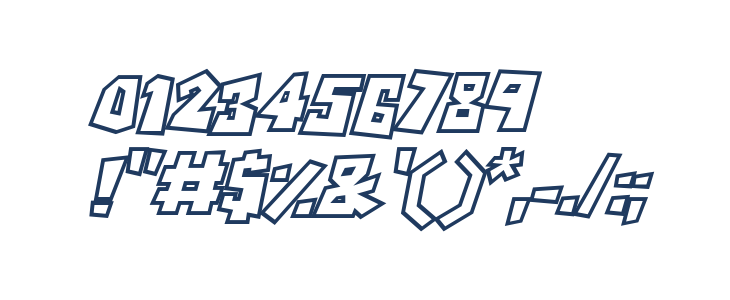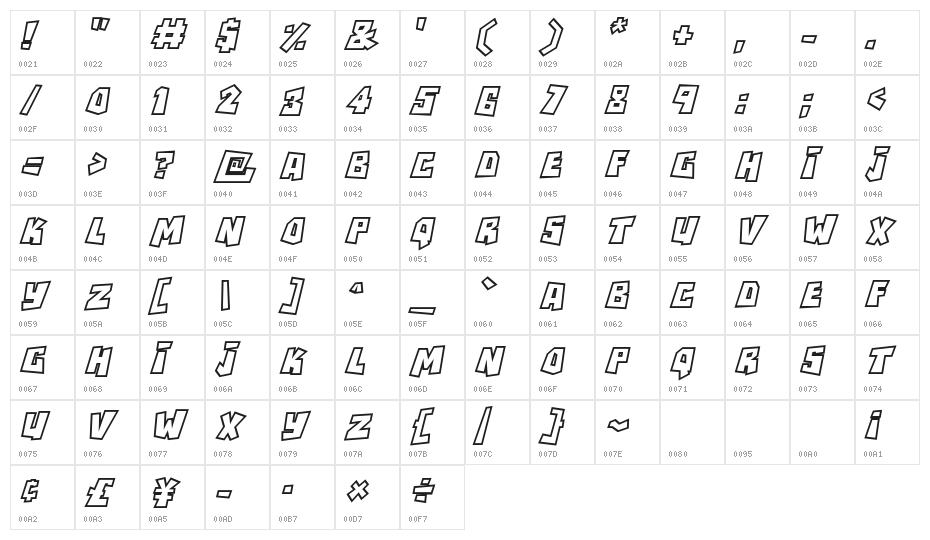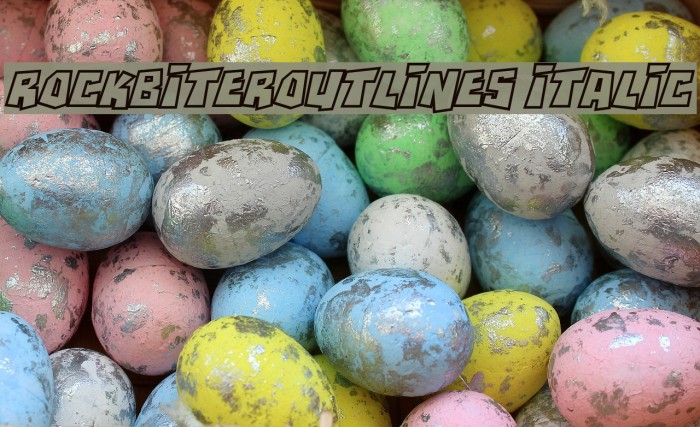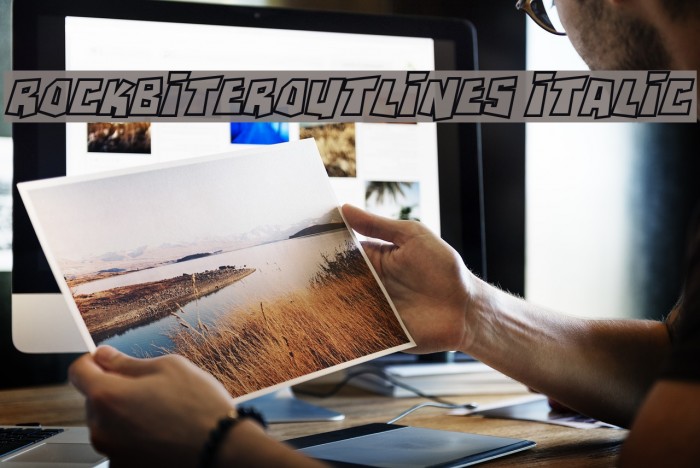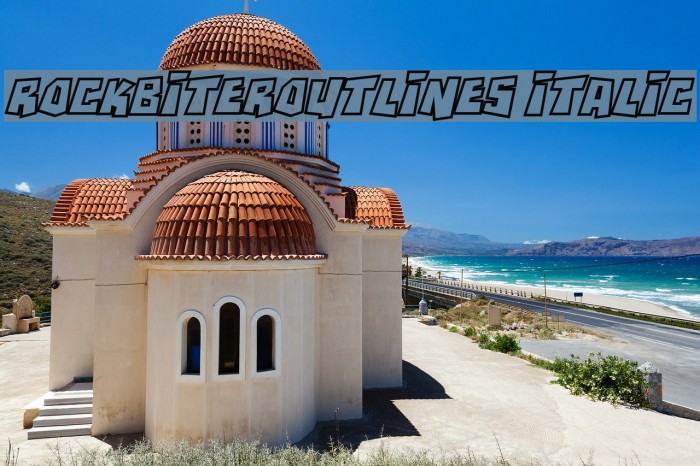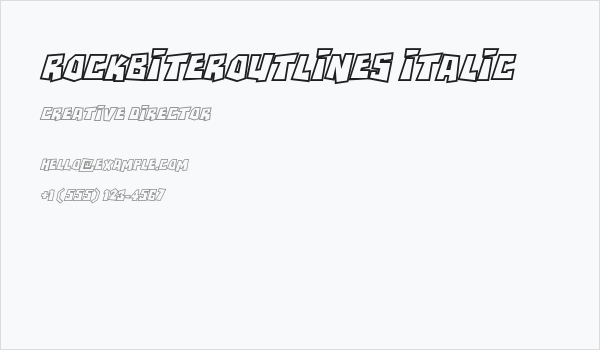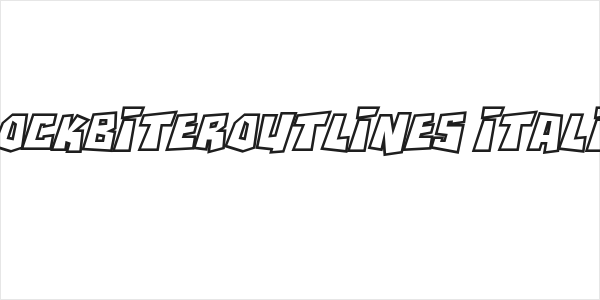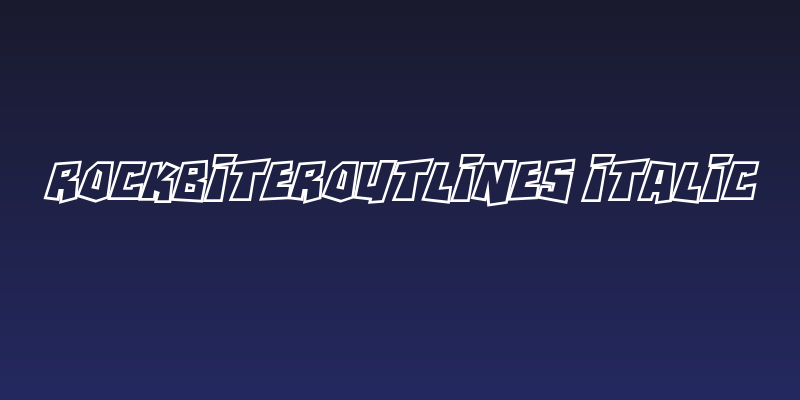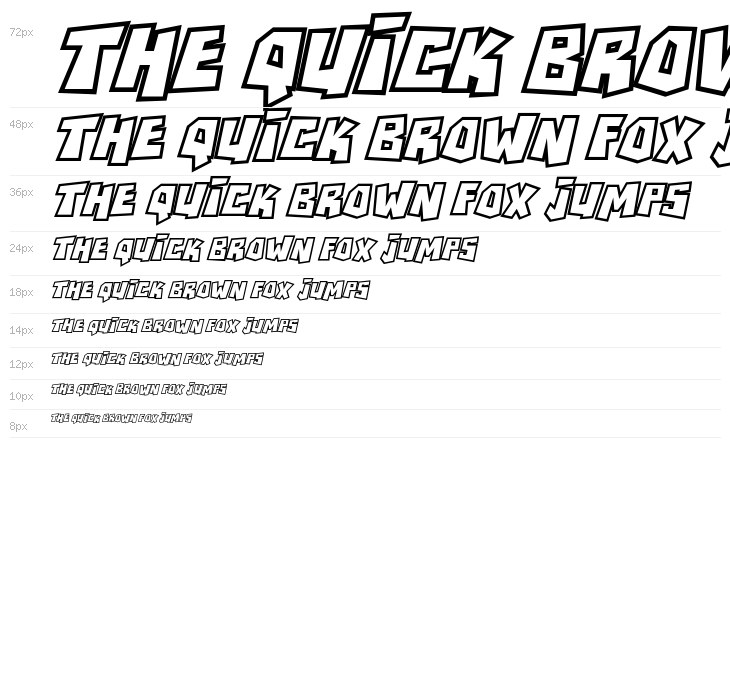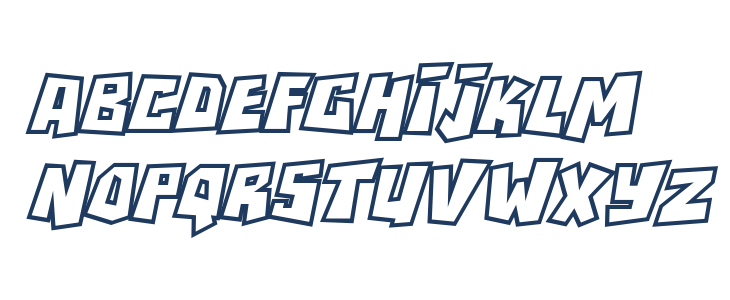
RockBiterOutlines Italic Font
RockBiterOutlines Italic Description
This font features bold, angular characters with a distinct outline, giving it a strong and impactful appearance. The letters are italicized, adding a dynamic and forward-leaning aspect to the design. Each character is crafted with sharp edges and a geometric style, making it stand out prominently. The font includes both uppercase and lowercase letters, numbers, and a variety of special characters, all maintaining the same bold and outlined aesthetic. The overall design is modern and eye-catching, suitable for projects that require a strong visual impact.